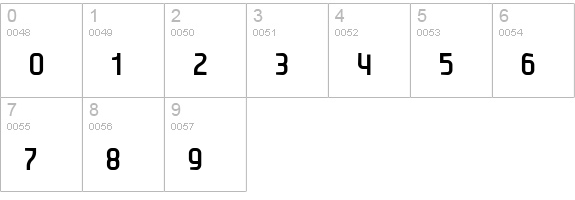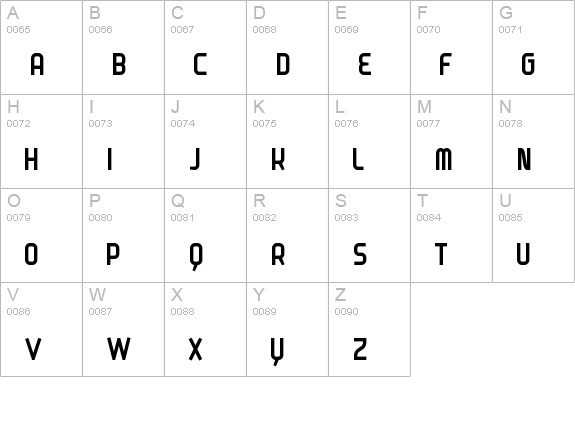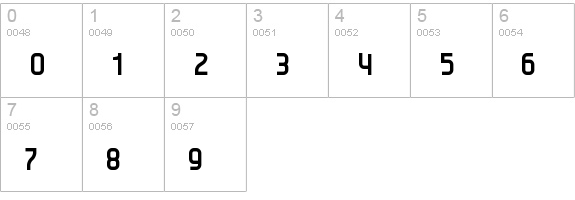
Danregular Font Details
Danregular font is a modern and versatile typeface that is sure to catch the eye of any designer or typographer. With its clean lines and sleek curves, this font is perfect for a wide range of projects, from branding and advertising to web design and print materials. One of the standout features of Danregular font is that it is available for free download at FontsMarket.com. This means that designers and creatives can easily access and use this font without any cost or restrictions. Whether you are a professional designer or a hobbyist, Danregular font offers a high-quality and stylish option that won't break the bank. The elegant and legible design of Danregular font makes it suitable for both headlines and body text. Its balanced proportions and carefully crafted letterforms ensure that your message is communicated effectively and with impact. The font's versatility allows it to work well across various design styles and genres, making it a go-to choice for many designers. Danregular font offers a wide range of characters, including uppercase and lowercase letters, numbers, punctuation marks, and special symbols. This comprehensive character set ensures that you have everything you need to create visually stunning and engaging designs. Whether you are working on a logo, a poster, a website, or any other design project, Danregular font provides a reliable and stylish option. Its timeless appeal and contemporary feel make it a great choice for any project, whether it be a sleek and modern design or a more traditional and elegant approach. In conclusion, Danregular font is a free and freely available typeface that offers a versatile and stylish option for designers and creatives. With its clean lines, balanced proportions, and comprehensive character set, this font is sure to elevate your designs and make a lasting impression. Download Danregular font today at FontsMarket.com and experience the limitless possibilities it offers.